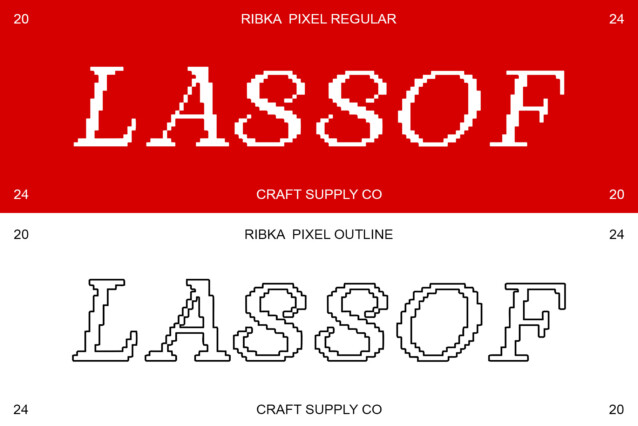
Ribka Pixel Font
Ribka Pixel Font is a modern serif font that blends elegant style with a pixel vibe, making it perfect for display purposes. Its unique design combines the sophistication of a serif font with the charming irregularities of pixel art, adding character to any project.
Elegance with a Pixel Twist
Experience the elegance of Ribka Pixel Font, enhanced with a pixel twist. Each letter is meticulously crafted to maintain a refined appearance while embracing the playful nature of pixel art, creating a delightful contrast that captures attention.